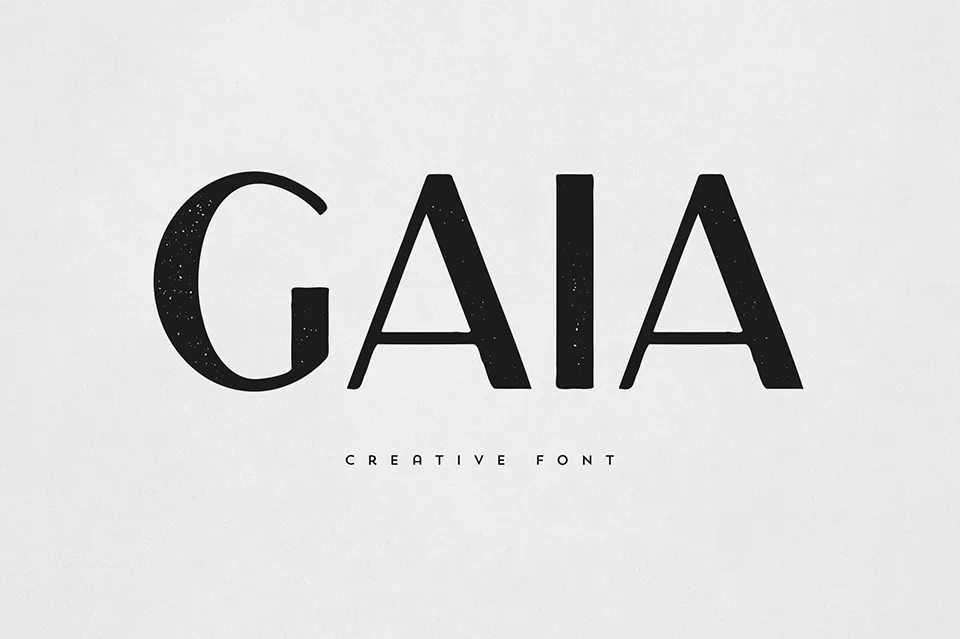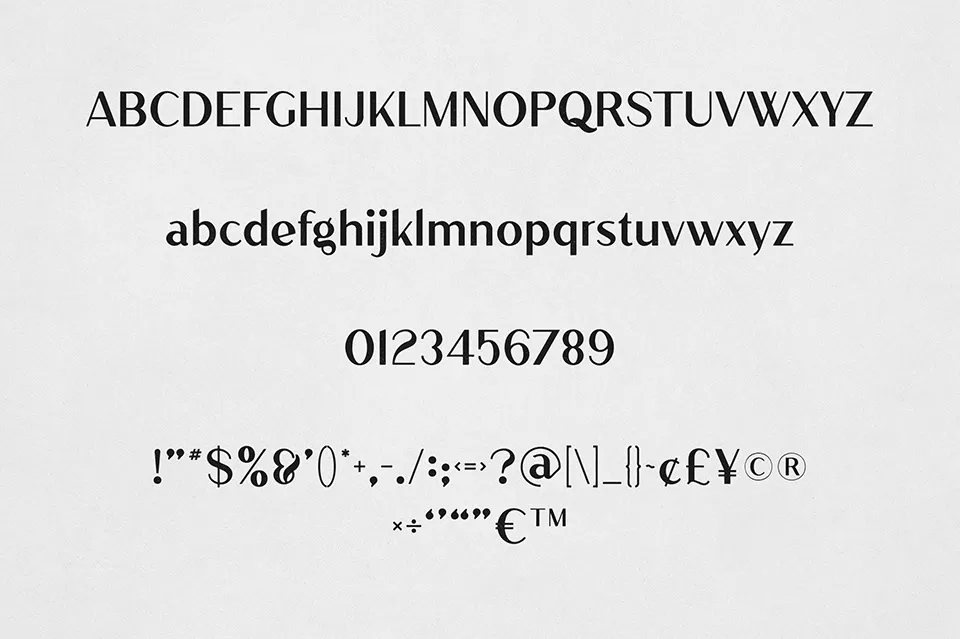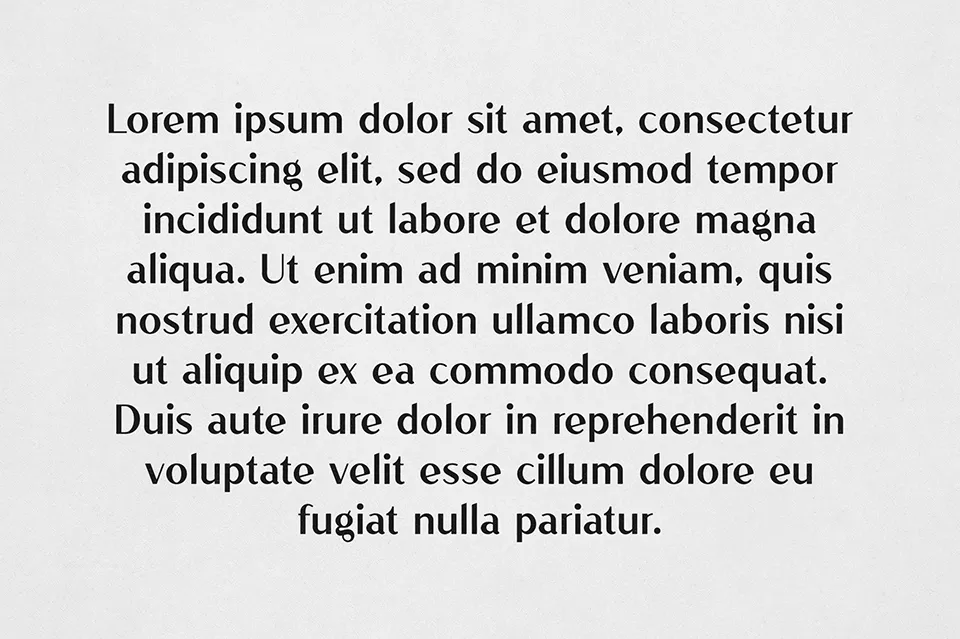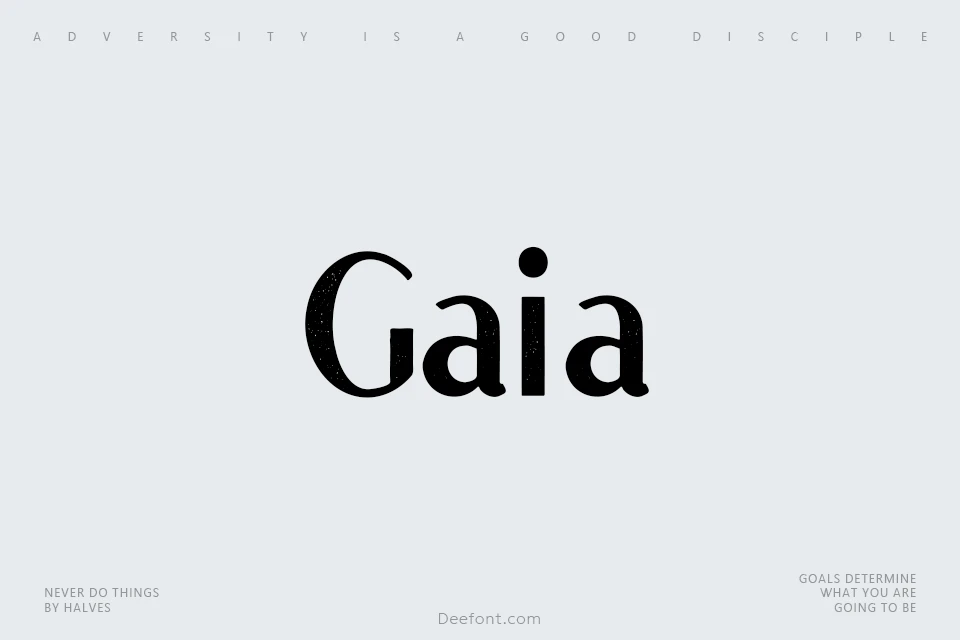
Gaia Font
Gaia Sans Serif Font, a modern and artistic typeface that blends minimalism with creative flair. Featuring clean, geometric letterforms enhanced by subtle textured details, Gaia is perfect for projects that require a bold yet refined aesthetic. This versatile font is ideal for branding, logos, headlines, posters, and editorial layouts, offering a contemporary look with a touch of uniqueness. Its balance of simplicity and creativity ensures excellent readability while adding character to your designs. Whether for digital or print use, Gaia Sans Serif Font elevates your work with its stylish and professional appeal. Bring your ideas to life with Gaia!